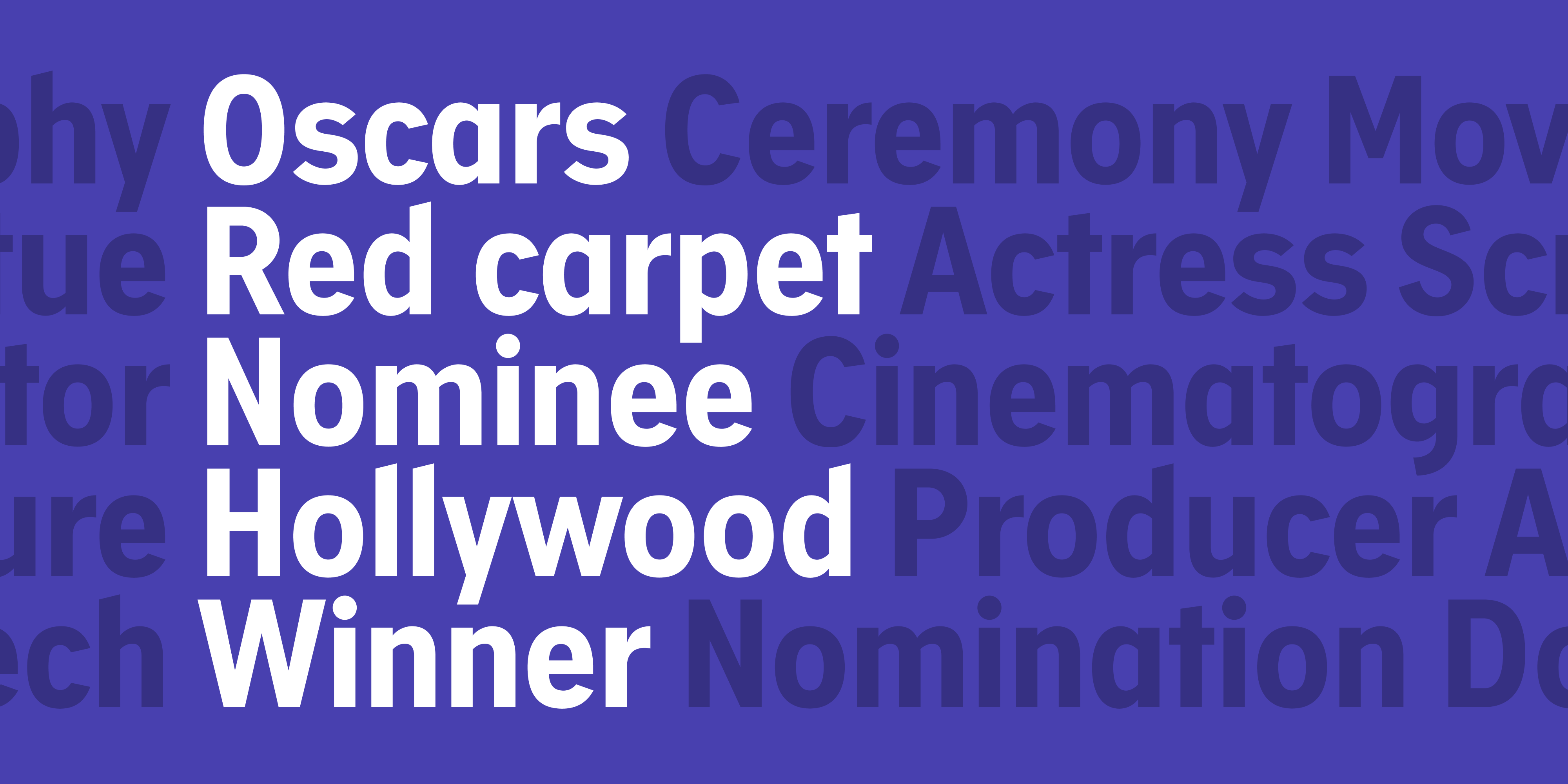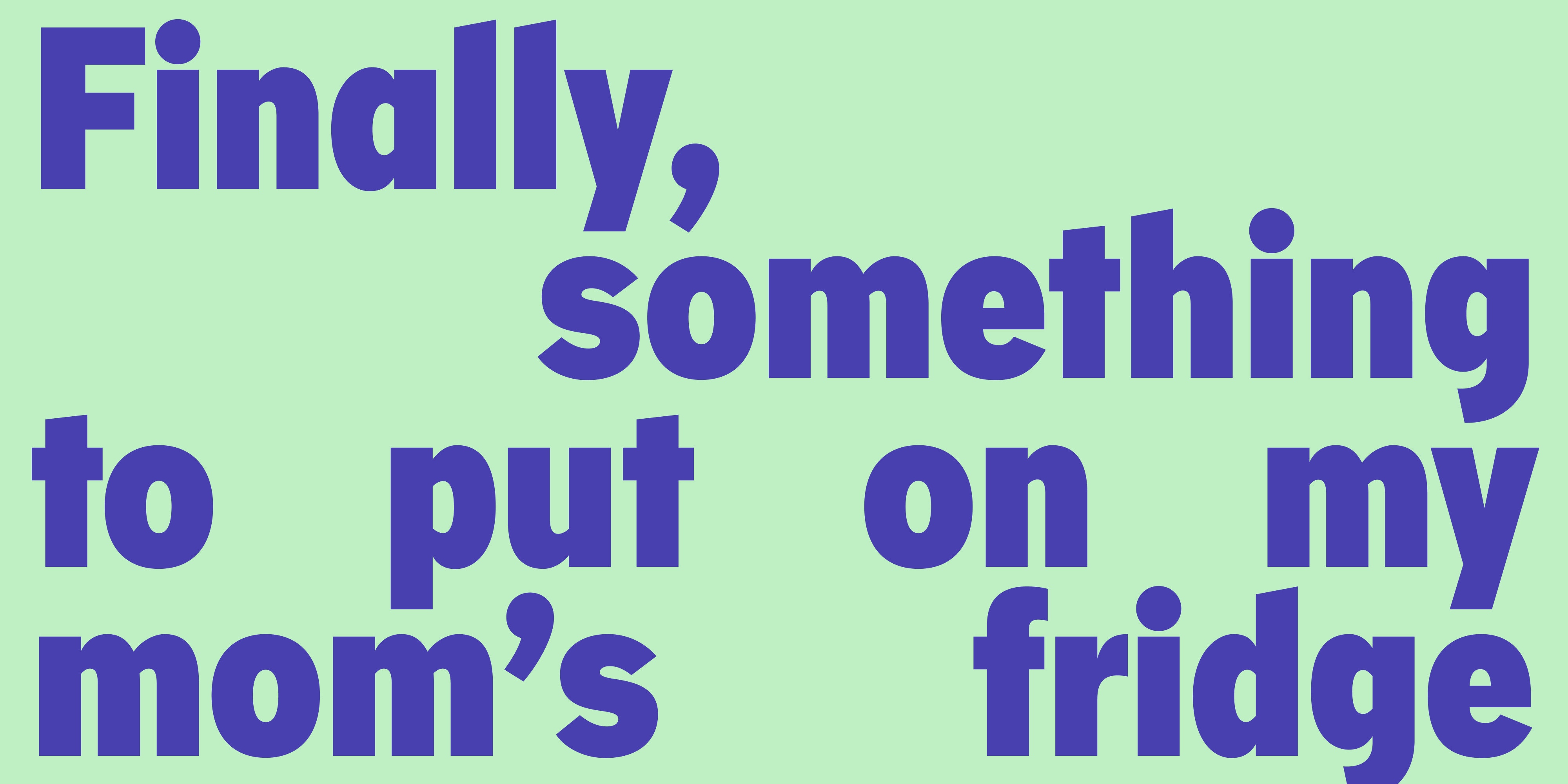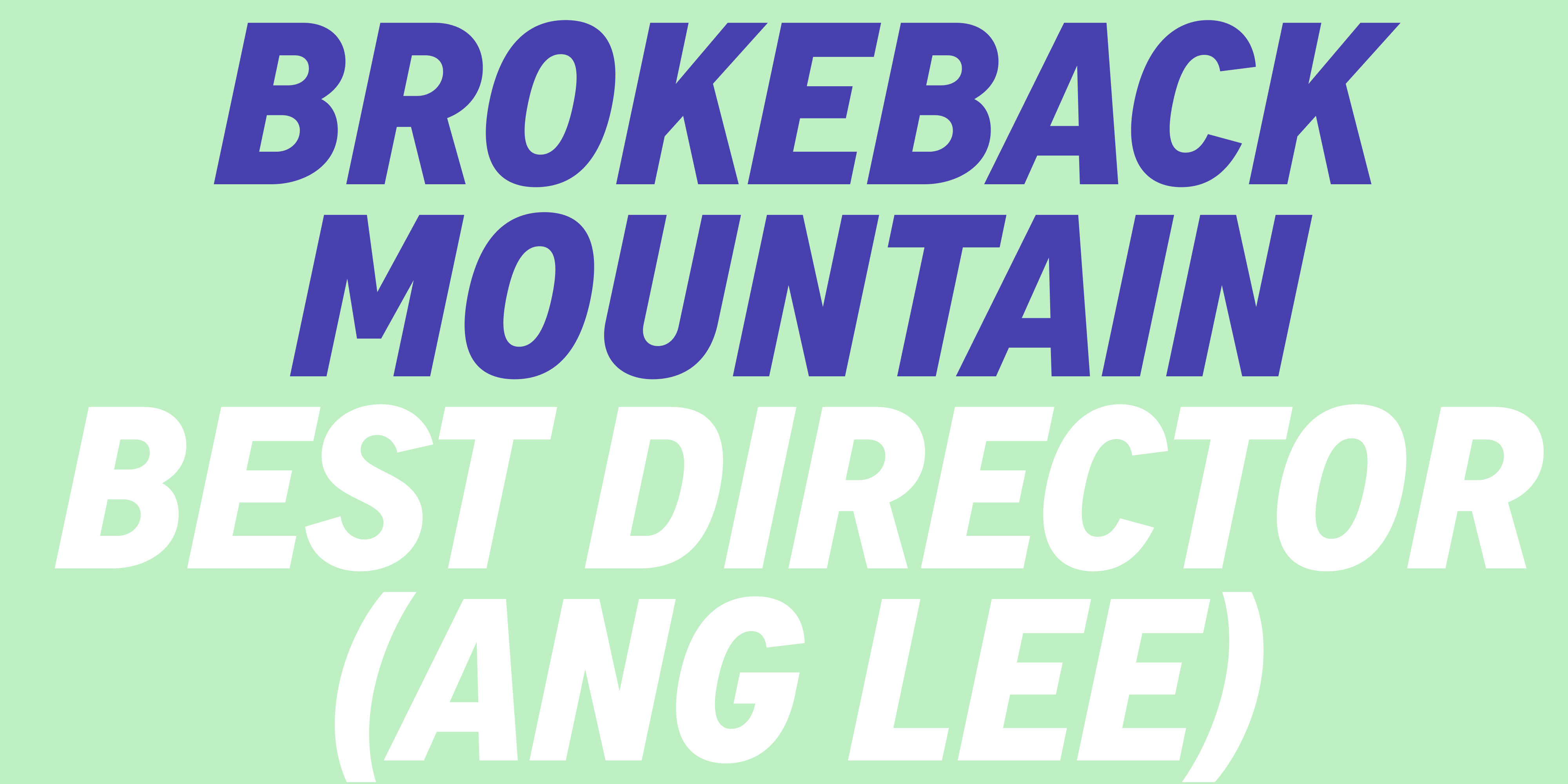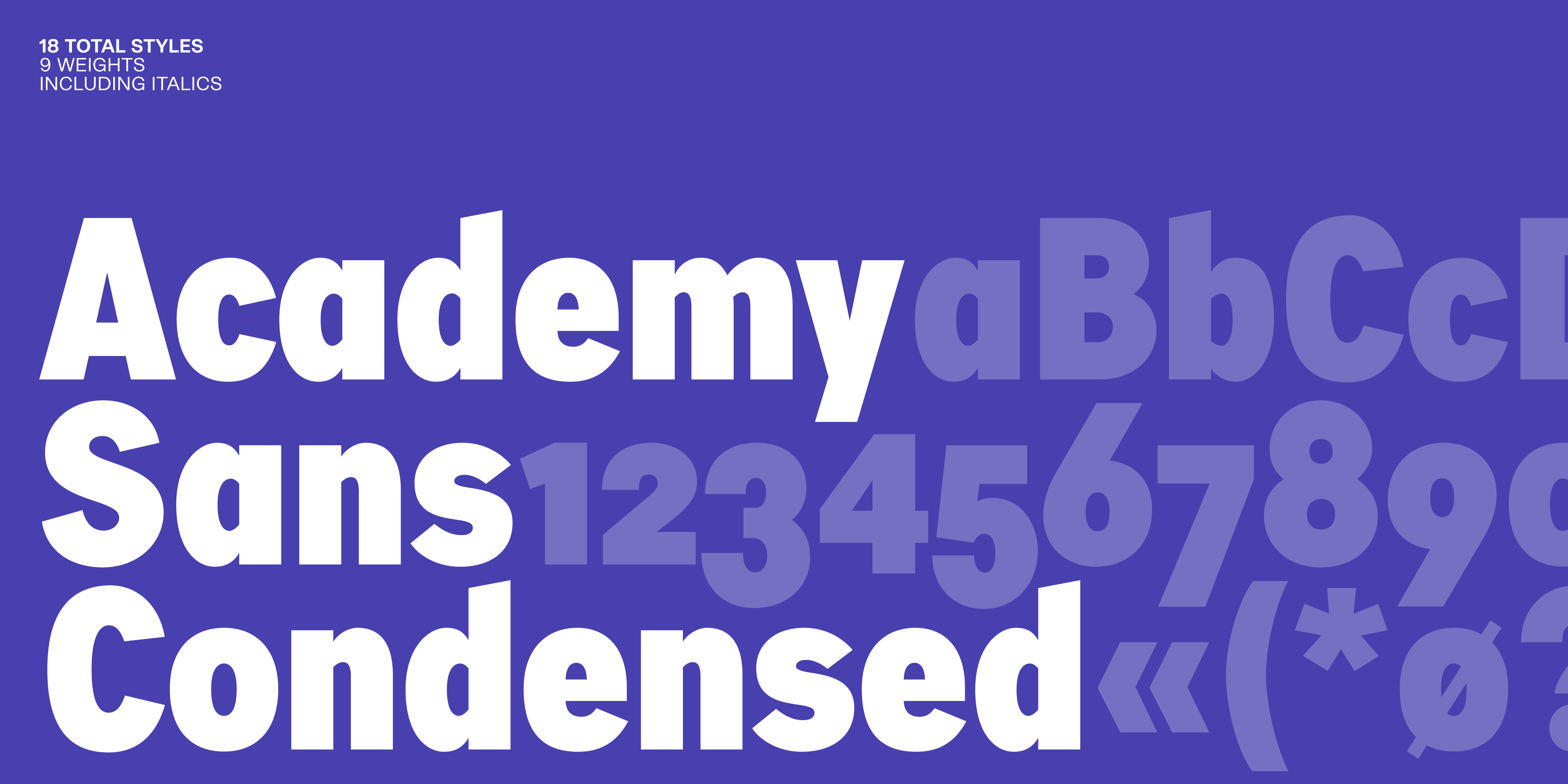
Academy Sans Condensed
Designer Jonas Hecksher
When space-saving or a tight and narrow look is requested Academy Sans Condensed is an evident choice. It functions very reliable for columns in newspapers and magazines or other layout where the space is limited.